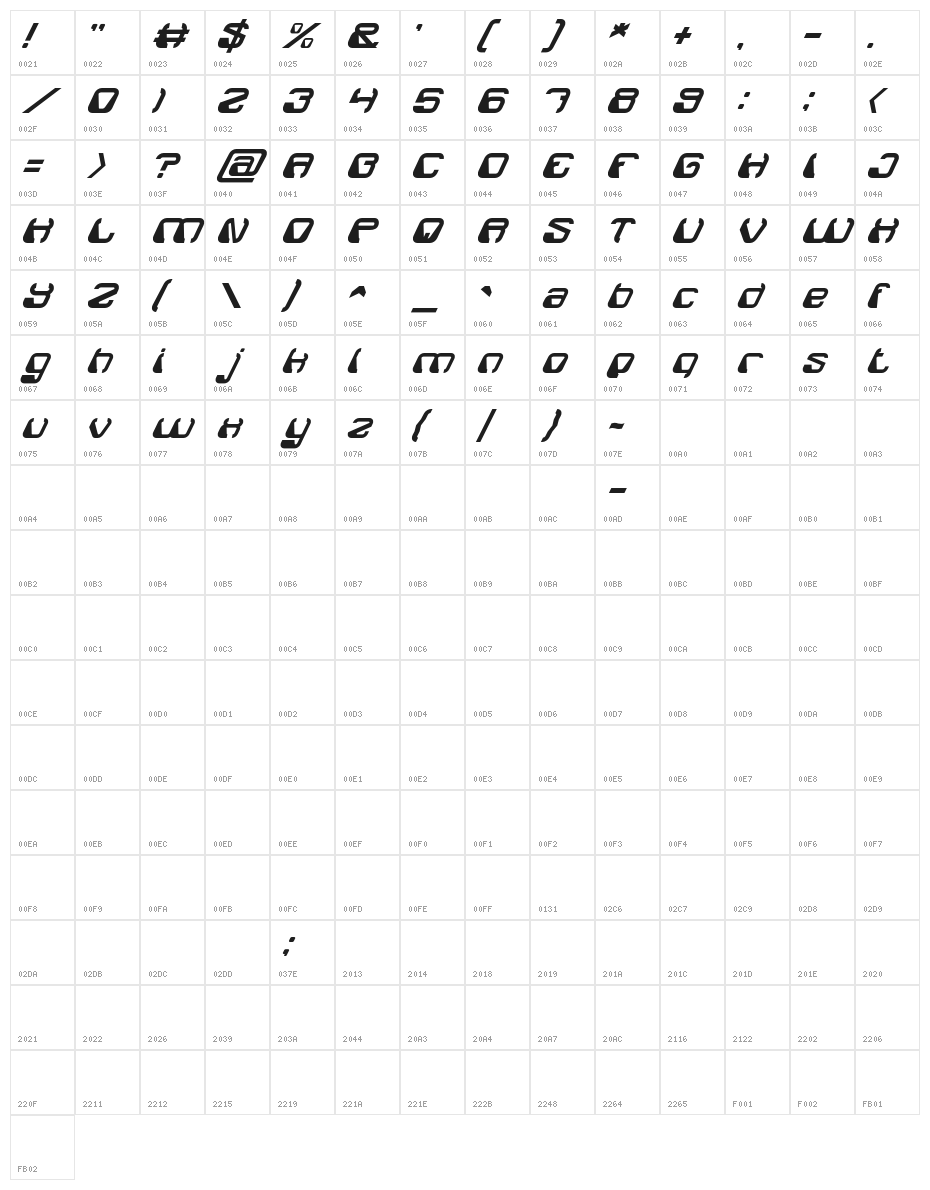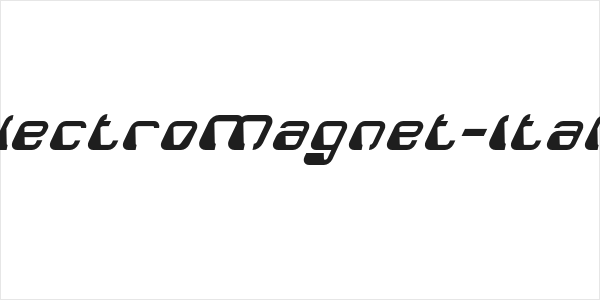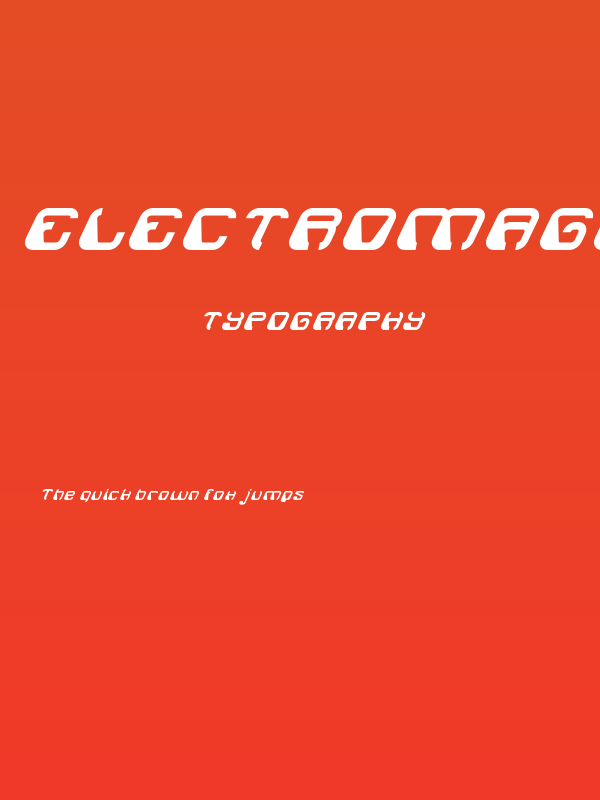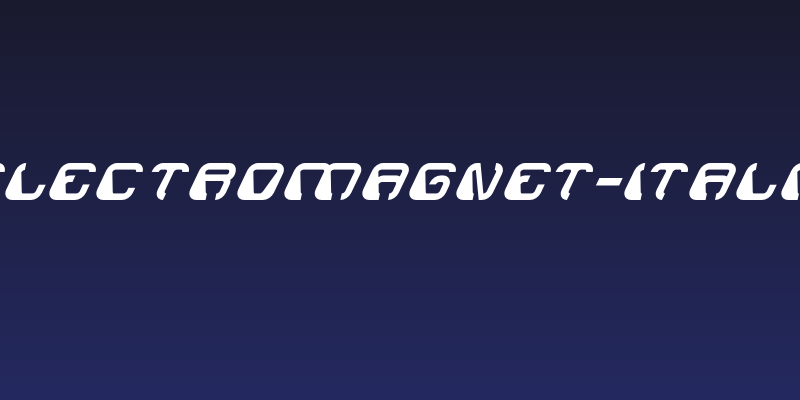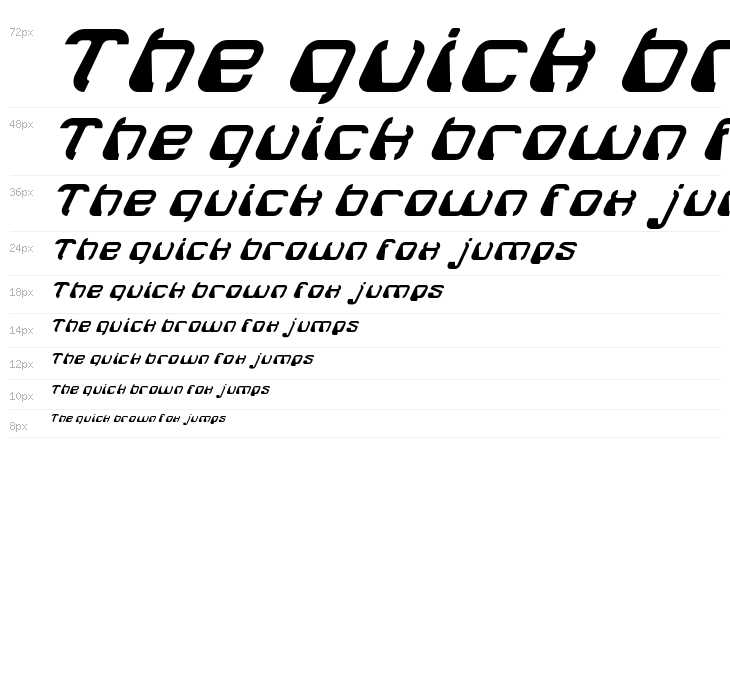
ElectroMagnet-Italic Font
ElectroMagnet-Italic Description
This font features a futuristic and dynamic design with a slanted, italicized style that conveys motion and energy. The characters are bold and have a distinct geometric structure, with sharp angles and clean lines. The uppercase and lowercase letters maintain a consistent style, while the numerals and special characters complement the overall aesthetic. The design is modern and sleek, making it suitable for projects that require a contemporary and tech-savvy appearance.
| Proposed Projects | Ideal for technology branding, sci-fi themed projects, video game titles, and modern advertising campaigns. |